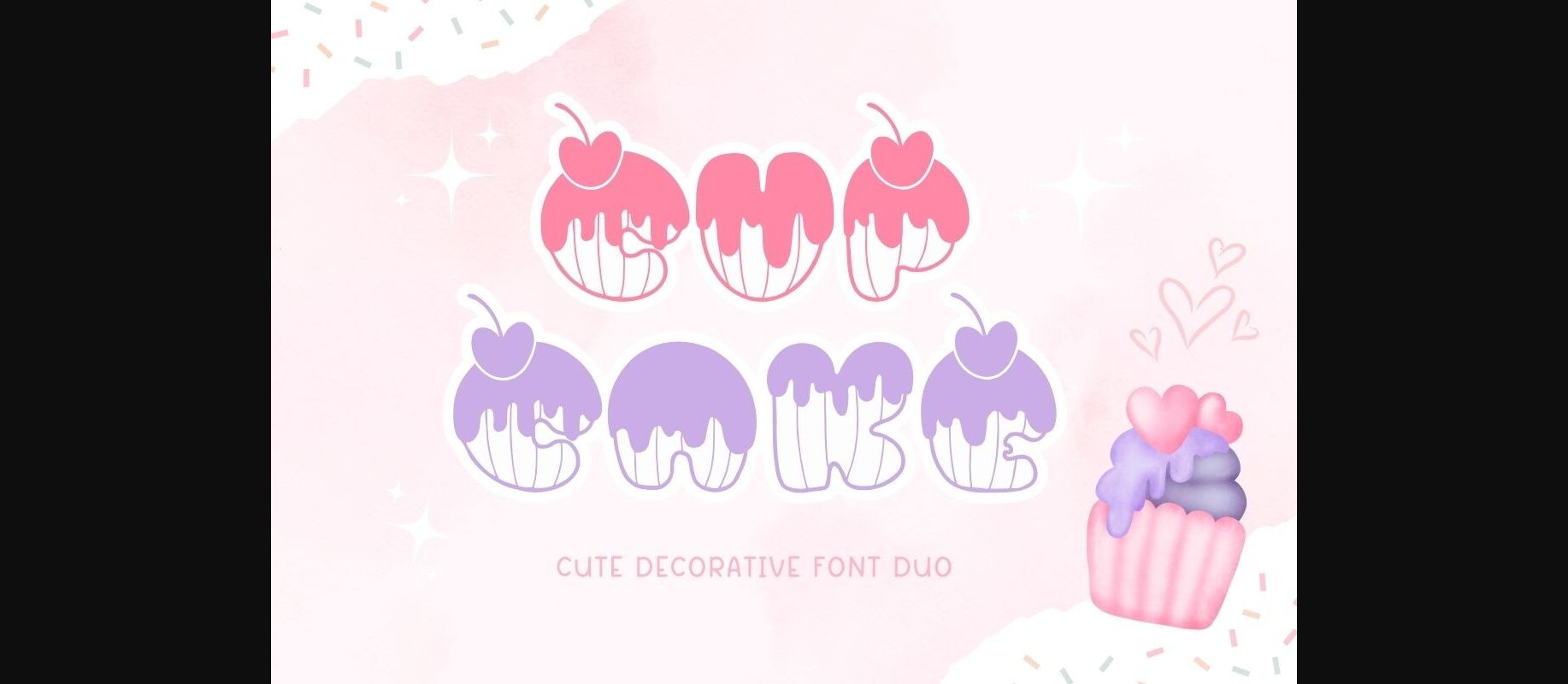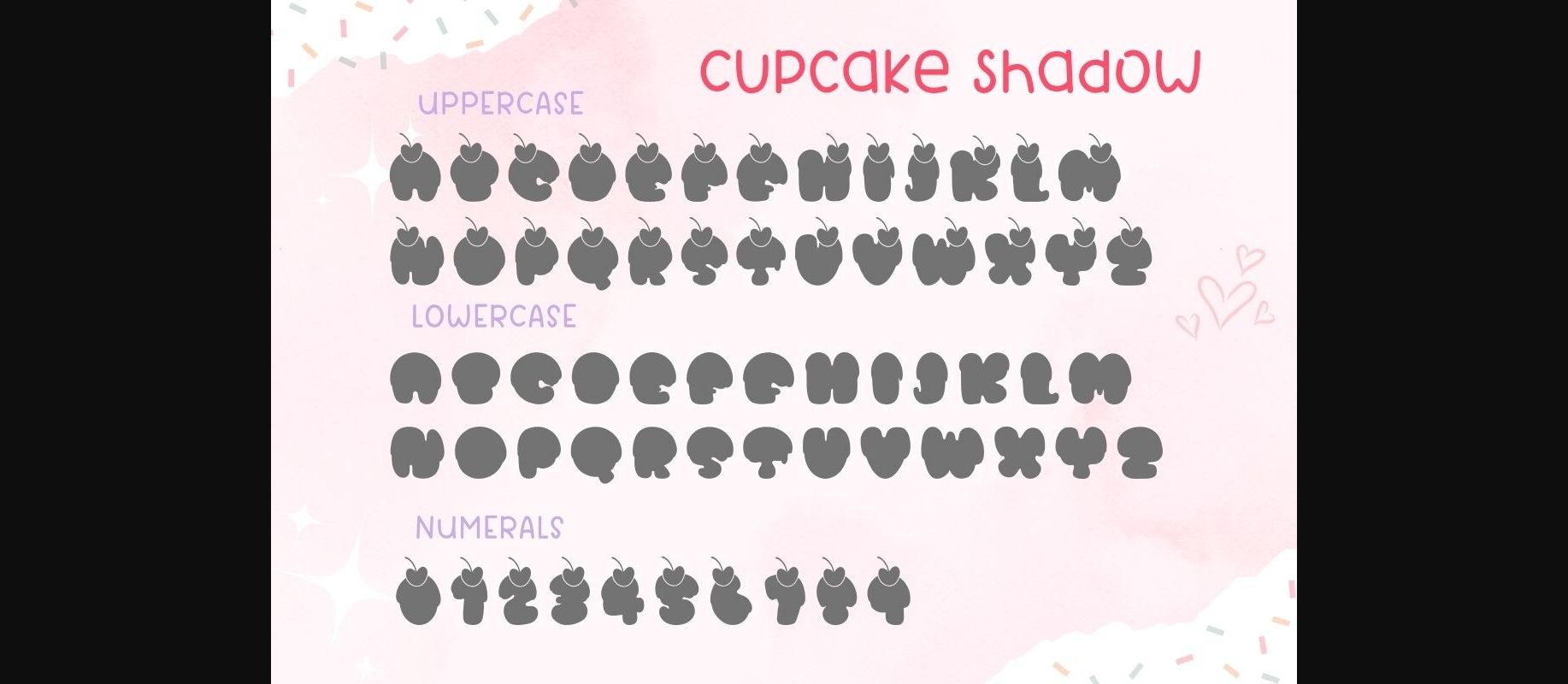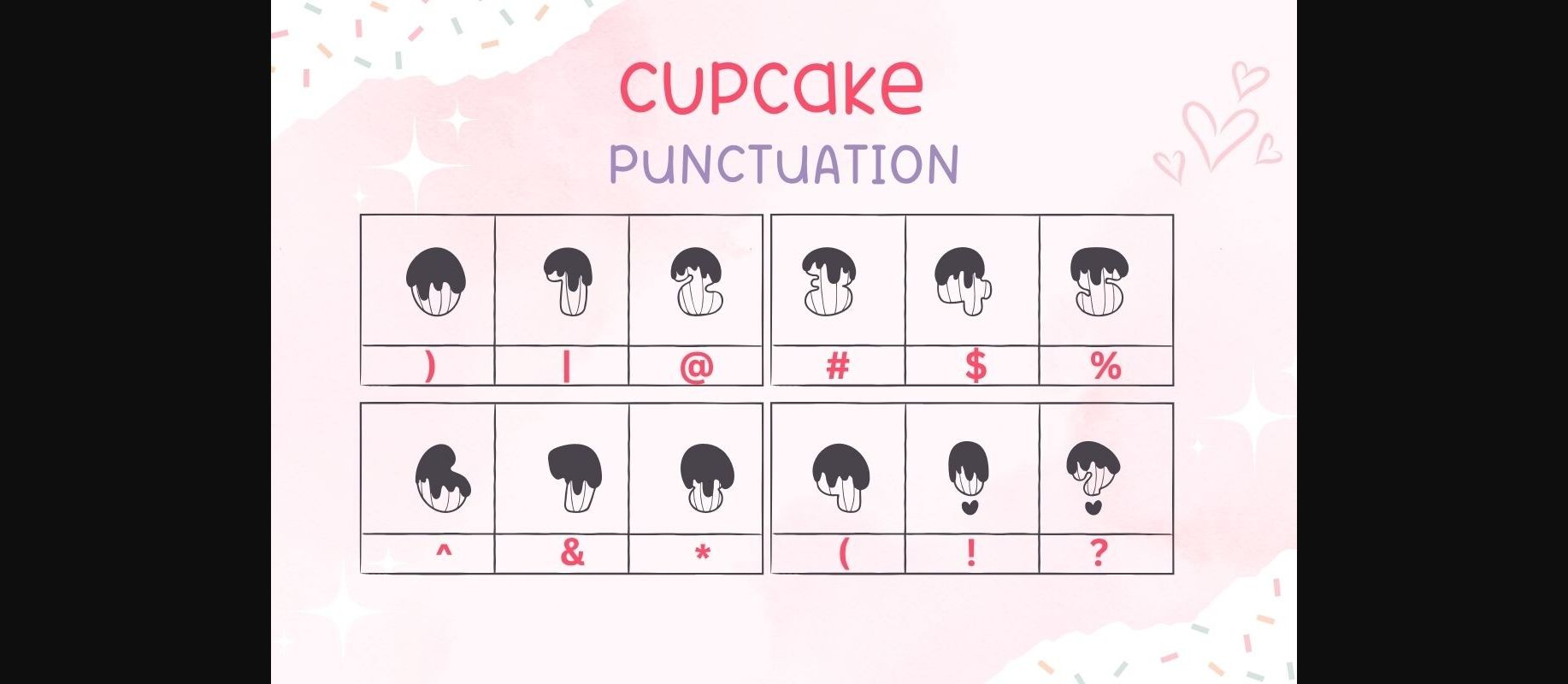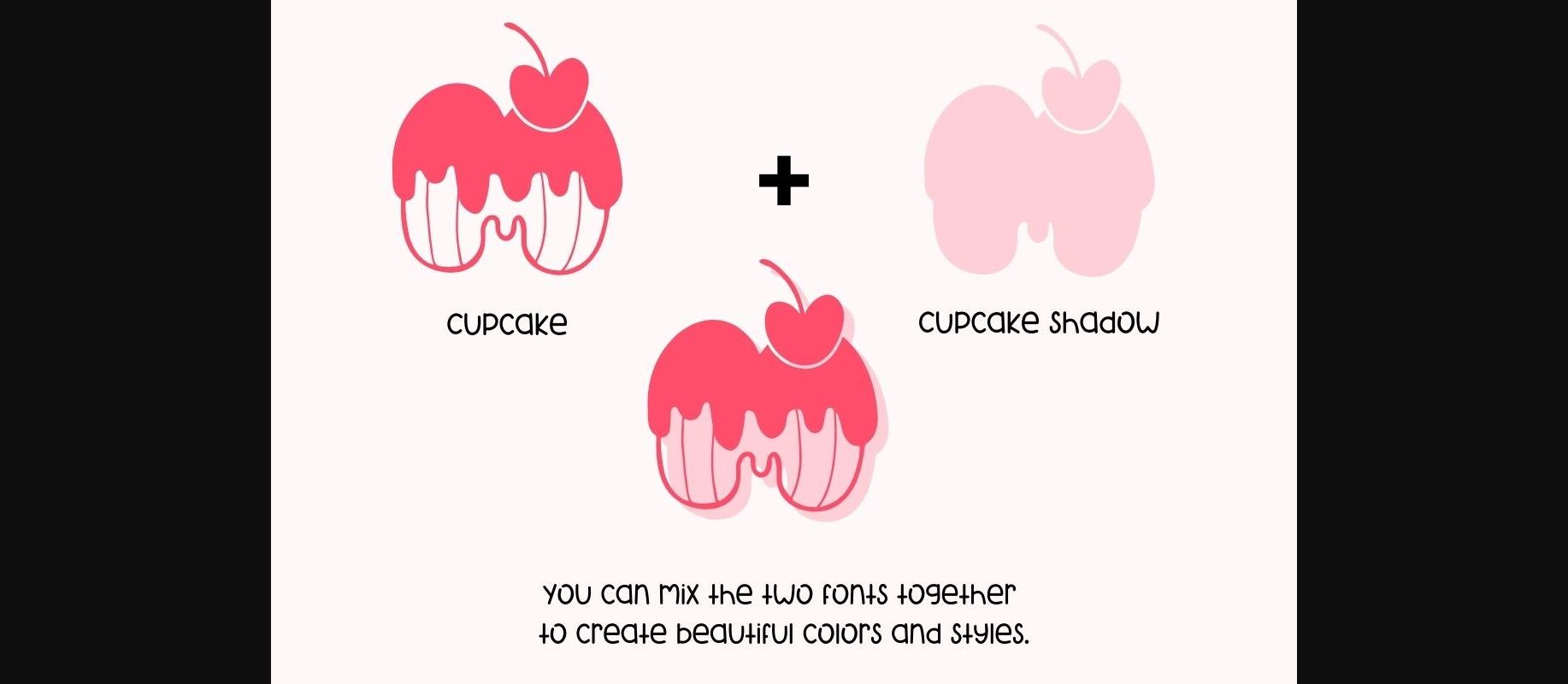
About Cupcake Font
Cupcake is a cute decorative Duo font. This font has a special design where the letters are drawn to imitate cupcake cups. It makes it look more unusual and interesting. You can use them to create beautiful Valentine’s cards, decorations, bags, mugs, and stationery.